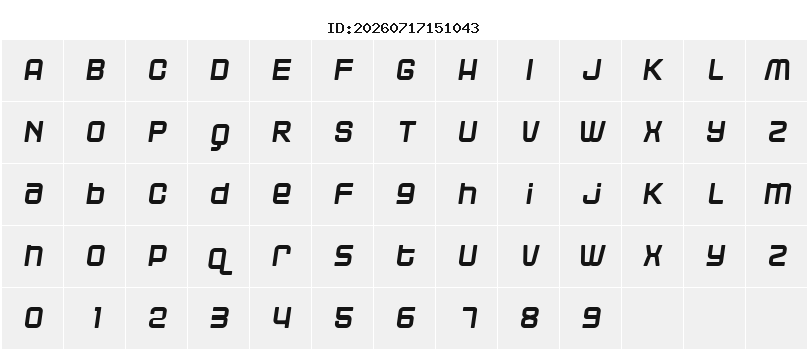
• Font Name: Blackjack
• Font Style: Rollin
• Full Font Name: Blackjack Rollin
• PostScript Name: BlackjackRollin
About Blackjack.ttf
Blackjack.ttf is a modern, elegant sans-serif font designed for ultimate readability and visual harmony. Perfect for branding, headlines, web design, and print materials.